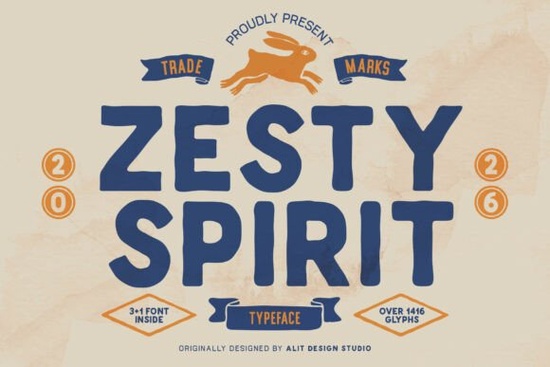
If you’ve ever tried to recreate that authentic, weathered look of vintage rubber stamps in your designs but without spending hours manually distressing each letter you’ll appreciate what Zesty Spirit Font offers right out of the box. Built for creators who value texture, character, and efficiency, this typeface family brings together rough edges, outdoor-inspired motifs, and smart typographic features in one cohesive toolkit.
Unlike many display fonts that rely on clean lines or minimalist aesthetics, Zesty Spirit leans into imperfection. Each glyph carries subtle ink bleed and uneven pressure marks that mimic real-world stamping. That means whether you’re designing a logo for a new coffee roastery or screen-printing a t-shirt for a surf camp, your typography already looks “lived-in” without extra plugins or filters.
What can you actually do with Zesty Spirit?
This isn’t just a font it’s a full design system tailored for small businesses and independent creators. Here’s how different users put it to work:
- Print-on-demand sellers use the Bold and High variants for retro-style apparel graphics that stand out in crowded marketplaces.
- Crafters and hobbyists layer the dingbats (like surfboards, tents, or foxes) with catchwords like “est.” or “co.” to build custom badges for stickers, mugs, or tote bags.
- Small food and beverage brands apply the textured caps to packaging think craft beer labels or artisanal spice jars where authenticity matters more than polish.
- Outdoor lifestyle startups combine glyphs from all three weights to create stacked logos that feel rugged but intentional.
Why does it include so many glyphs?
With over 1,416 glyphs, Zesty Spirit gives you room to experiment without switching tools. The OpenType features let you swap standard punctuation for distressed alternatives or choose from multiple ampersand styles all within your design software. Plus, the all-caps structure is optimized for headlines and logos, not body text, so every character is built for maximum visual impact at larger sizes.
The included extras are especially useful:
- Zesty Spirit Dingbat Gram: Hand-drawn icons covering camping, fishing, surfing, motorcycles, and wildlife.
- Zesty Spirit Dingbat Type: Pre-styled abbreviations (“mrk,” “trd,” circled numbers) that save time when building vintage layouts.
- Rough Stamp Texture: Built directly into every letterform no overlays needed.
For those working across borders or multilingual audiences, the font supports an extensive range of Latin-based languages, making it practical beyond English-only projects.
How does it compare to similar fonts?
Many “vintage” fonts online offer only one weight or require manual distressing. Zesty Spirit solves both issues by delivering three distinct styles Bold for punchy headlines, Thin for delicate contrast, and High for tight spaces like circular badges. This flexibility means you can maintain visual consistency across an entire brand identity without mixing unrelated typefaces.
Who should skip this font?
If your project calls for sleek modernism, fine typography, or readability at small sizes, this isn’t the right fit. Zesty Spirit thrives in display contexts where grit and personality outweigh precision. It’s also fully uppercase, so don’t expect lowercase letters or paragraph-friendly spacing.
But if you’re after that tactile, analog feel without the analog workflow this font family removes friction while preserving charm.